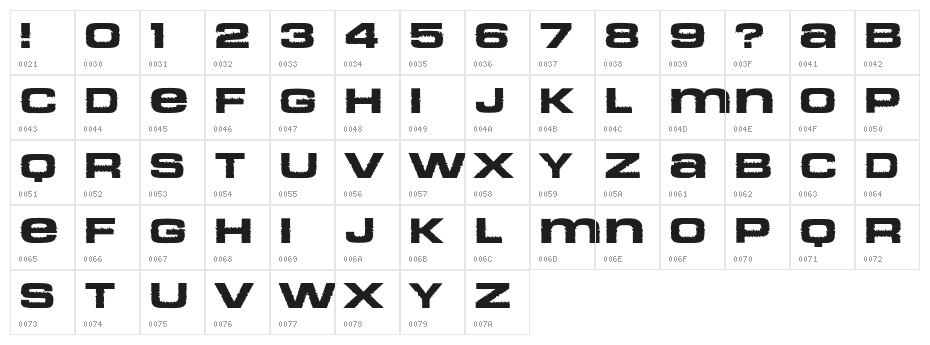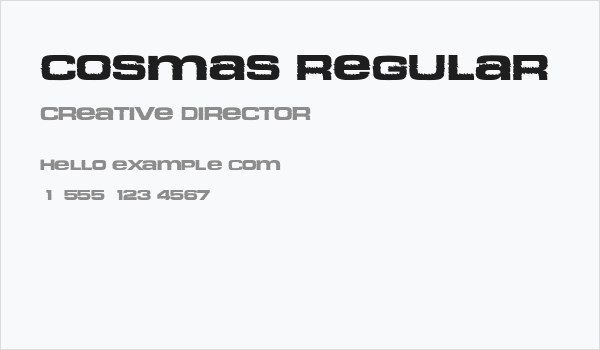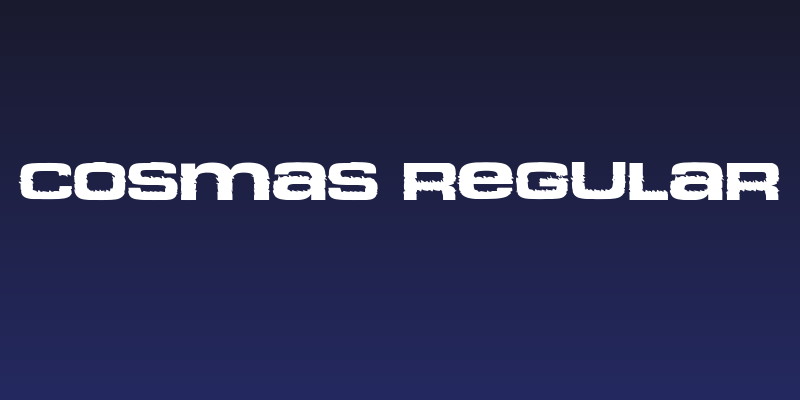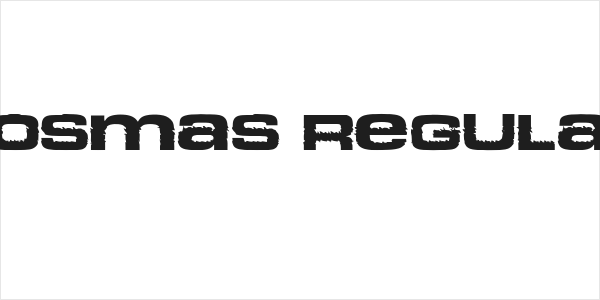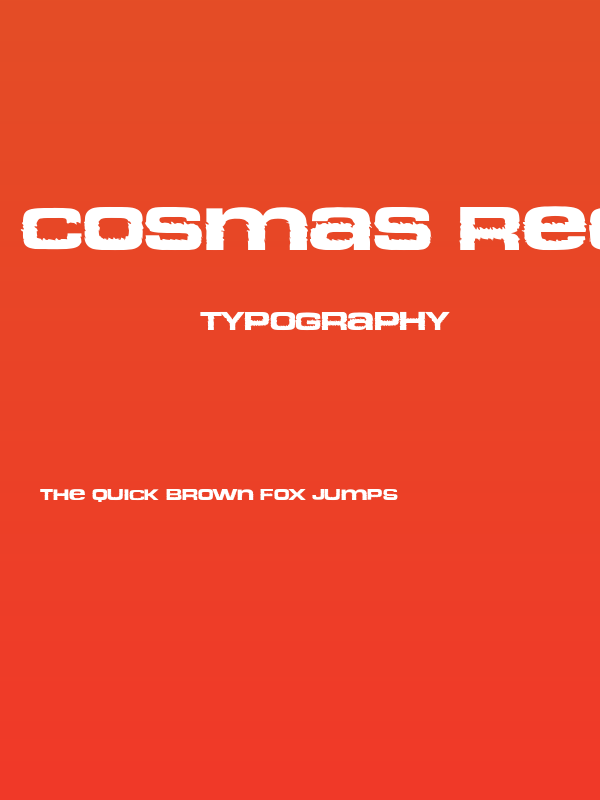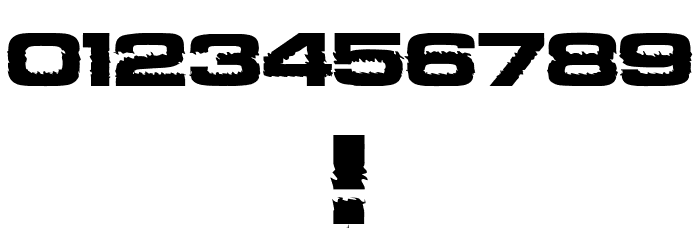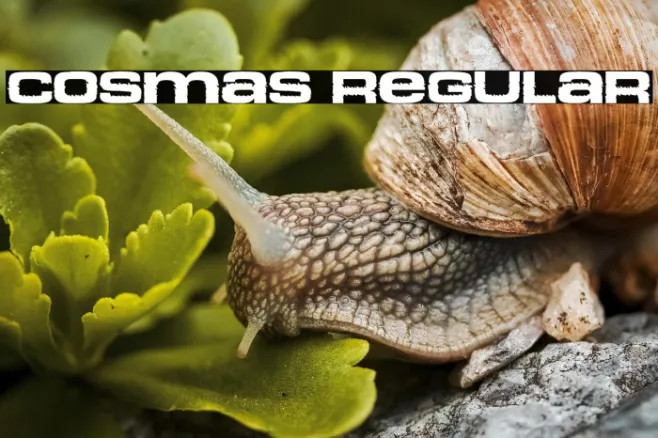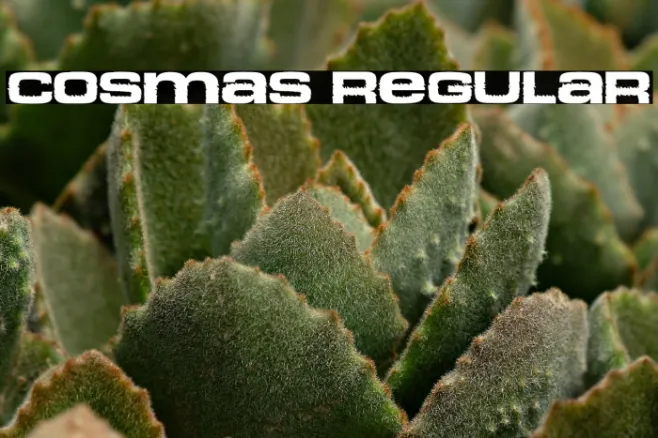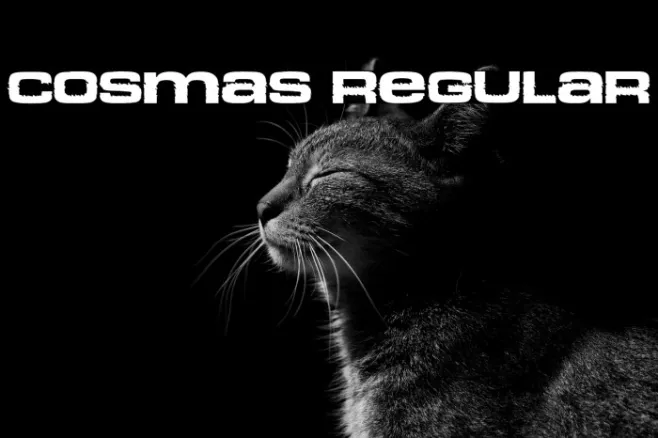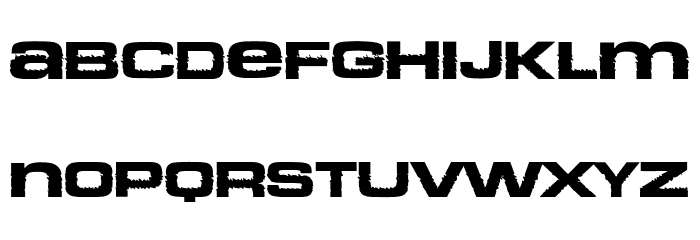
Cosmas Regular Font
Cosmas Regular Description
This font features a bold and striking design with a distressed, grunge-like texture that gives it a unique and edgy appearance. The characters are wide and have a slightly condensed form, with irregular edges that create a sense of movement and energy. The uppercase and lowercase letters maintain a consistent style, while the numbers and special characters complement the overall aesthetic. This font's distinctive look makes it ideal for projects that require a bold statement or an urban, gritty feel.
| Overall Style | Modern, Grunge |
| Proposed Projects | Ideal for album covers, posters, streetwear branding, and urban-themed designs. |